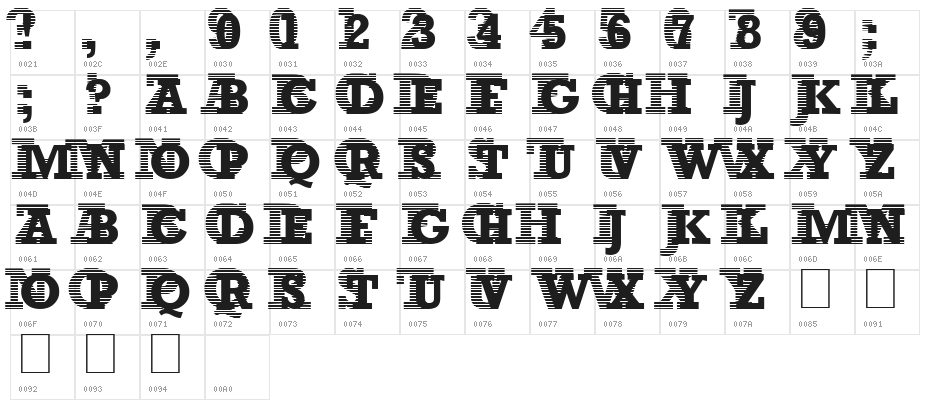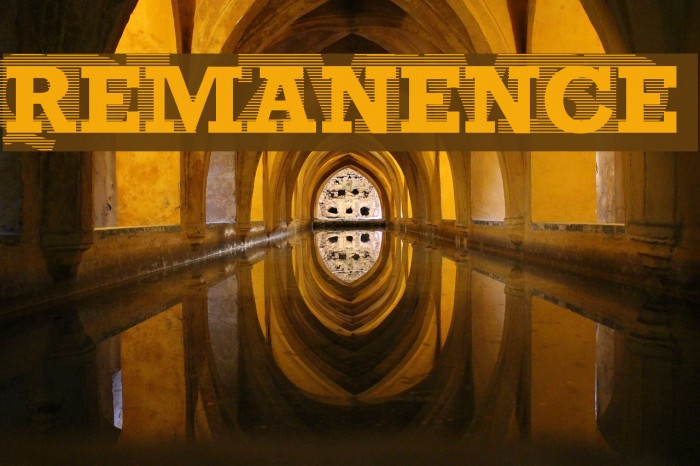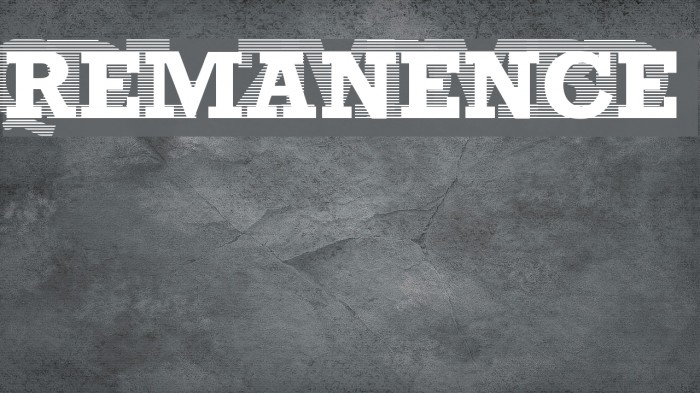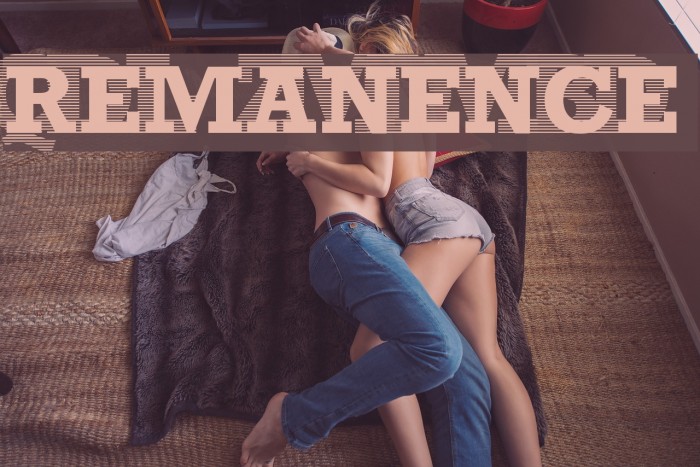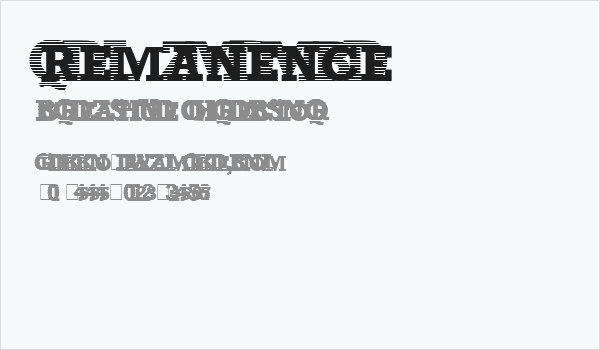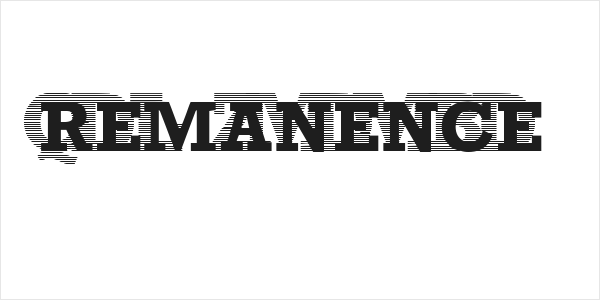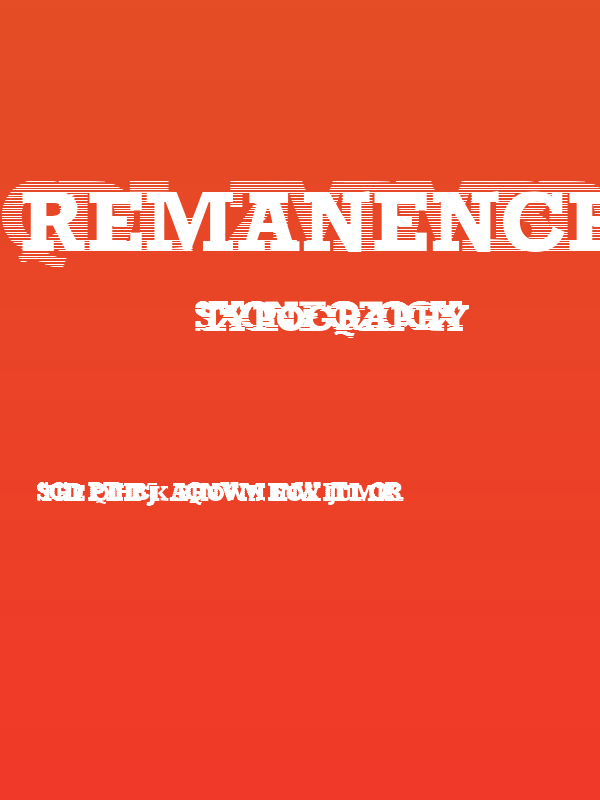
Remanence Font
Remanence Description
This font features a bold and striking design with a unique striped pattern running horizontally through each character. The letters are uppercase and exhibit a strong presence, making them ideal for attention-grabbing headlines. The numbers and special characters follow the same bold style, ensuring consistency across all text elements. The font's distinct appearance is both modern and decorative, suitable for projects that require a standout typographic choice.
| Proposed Projects | Ideal for posters, branding, and advertising where a bold statement is needed. |